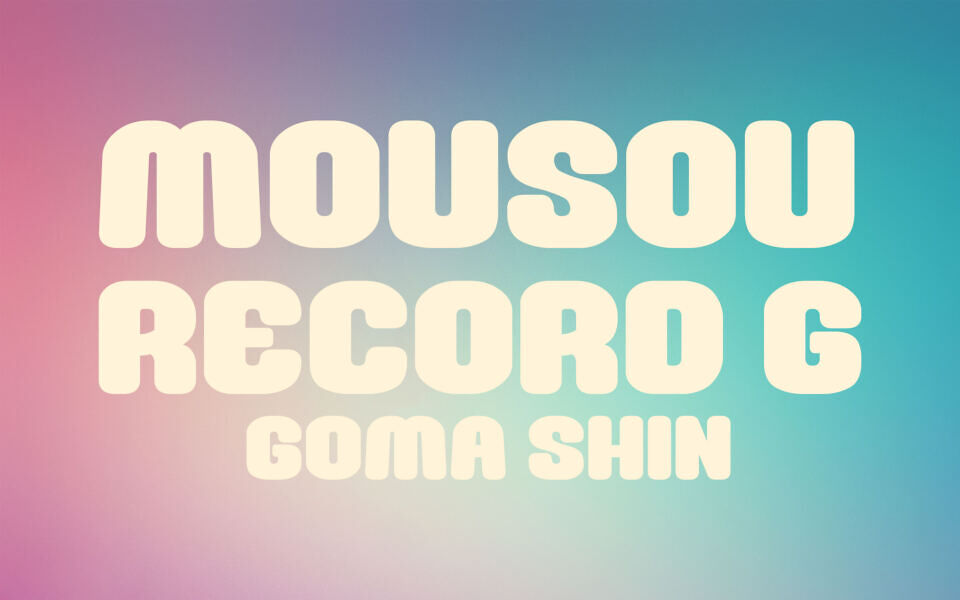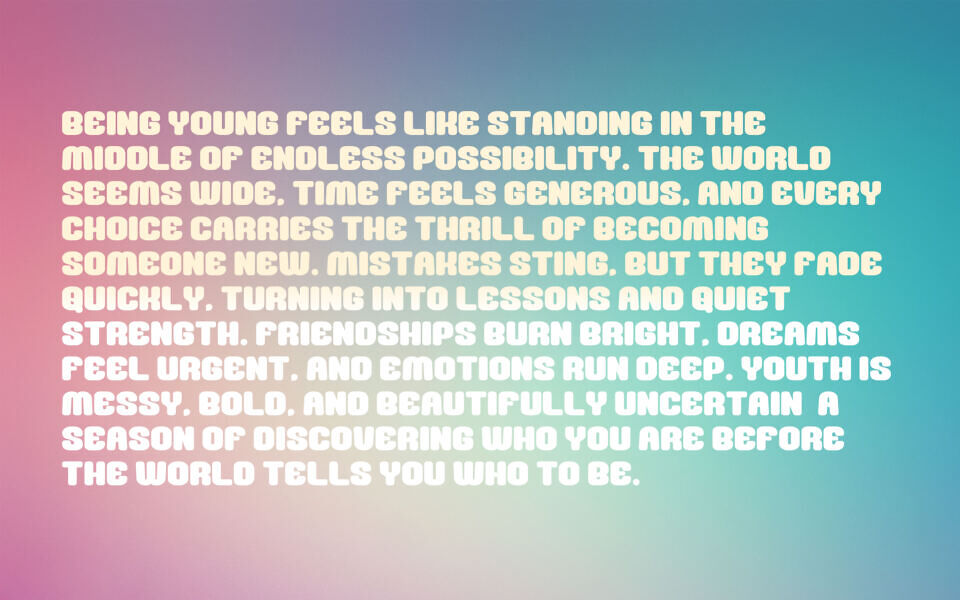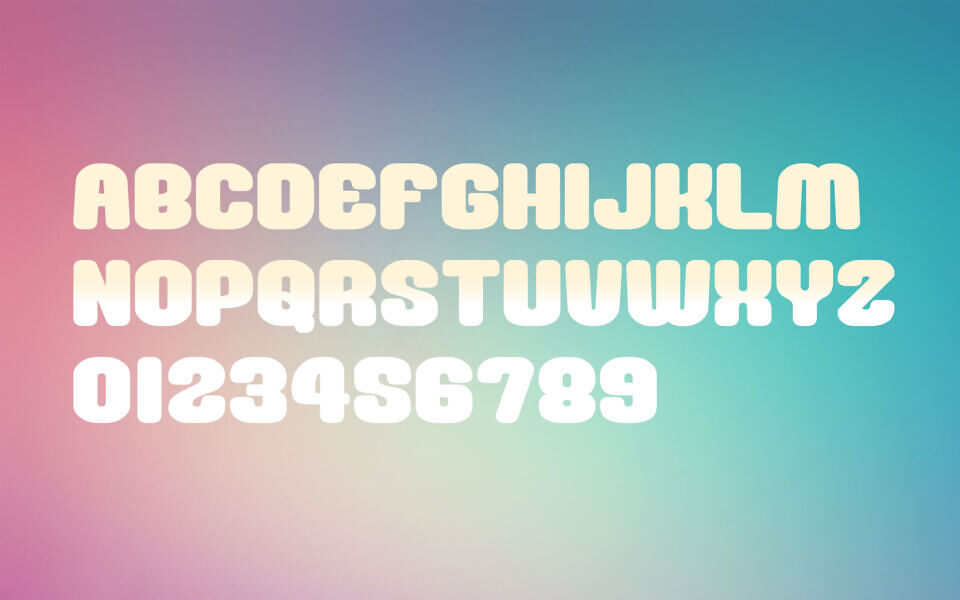
The Mousou Record G Font, designed by Goma Shin, is a striking free display typeface that radiates a playful, 70s-inspired retro vibe. Characterized by its ultra-heavy weight and soft, bubble-like rounded corners, this font offers an eye-catching, chunky aesthetic.
Its thick letterforms and quirky, compact proportions make it ideal for high-impact headlines, streetwear branding, vintage-style posters, creative digital content and more. Featuring a full set of uppercase letters and numerals, Mousou Record G blends nostalgia with a modern, energetic flair.